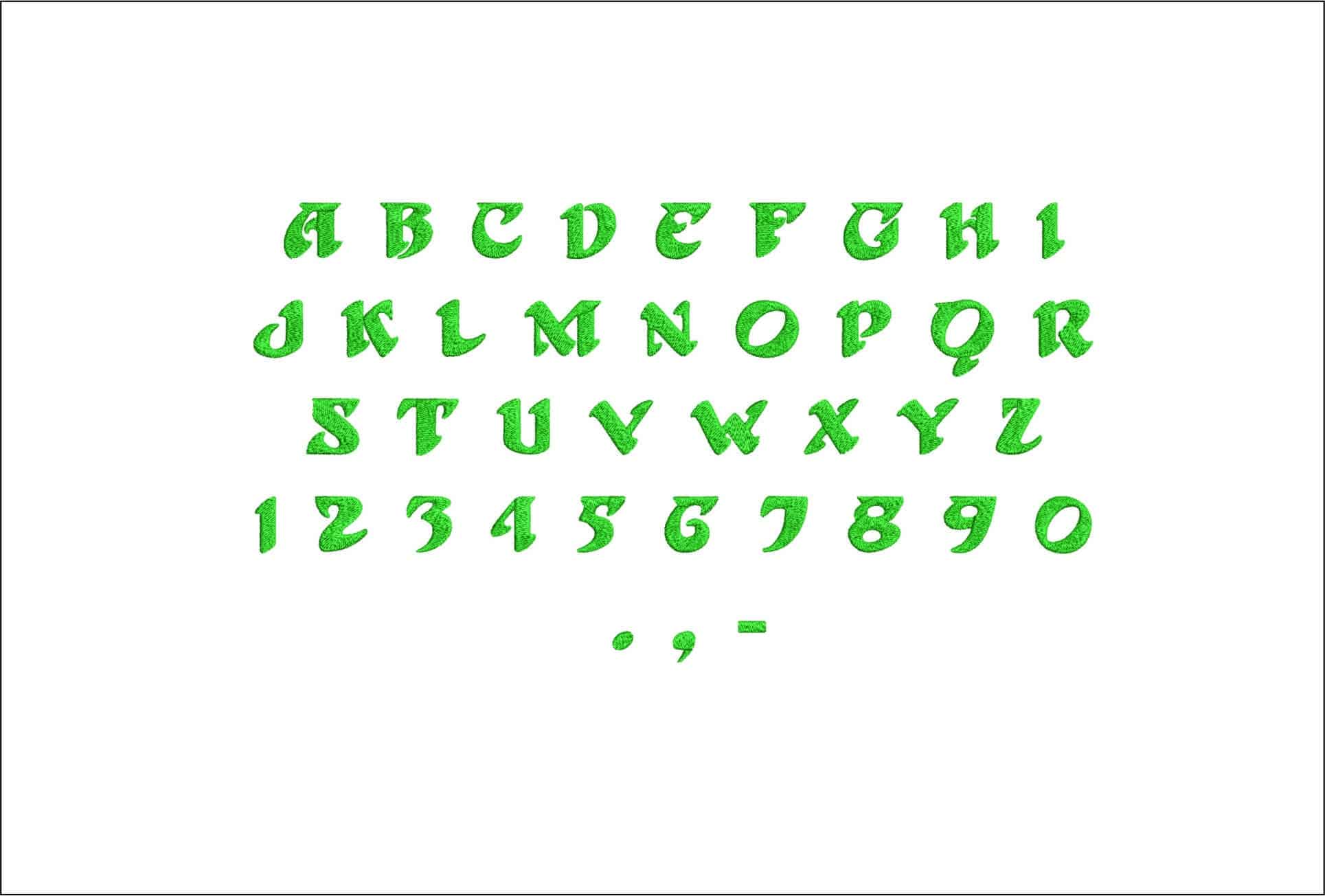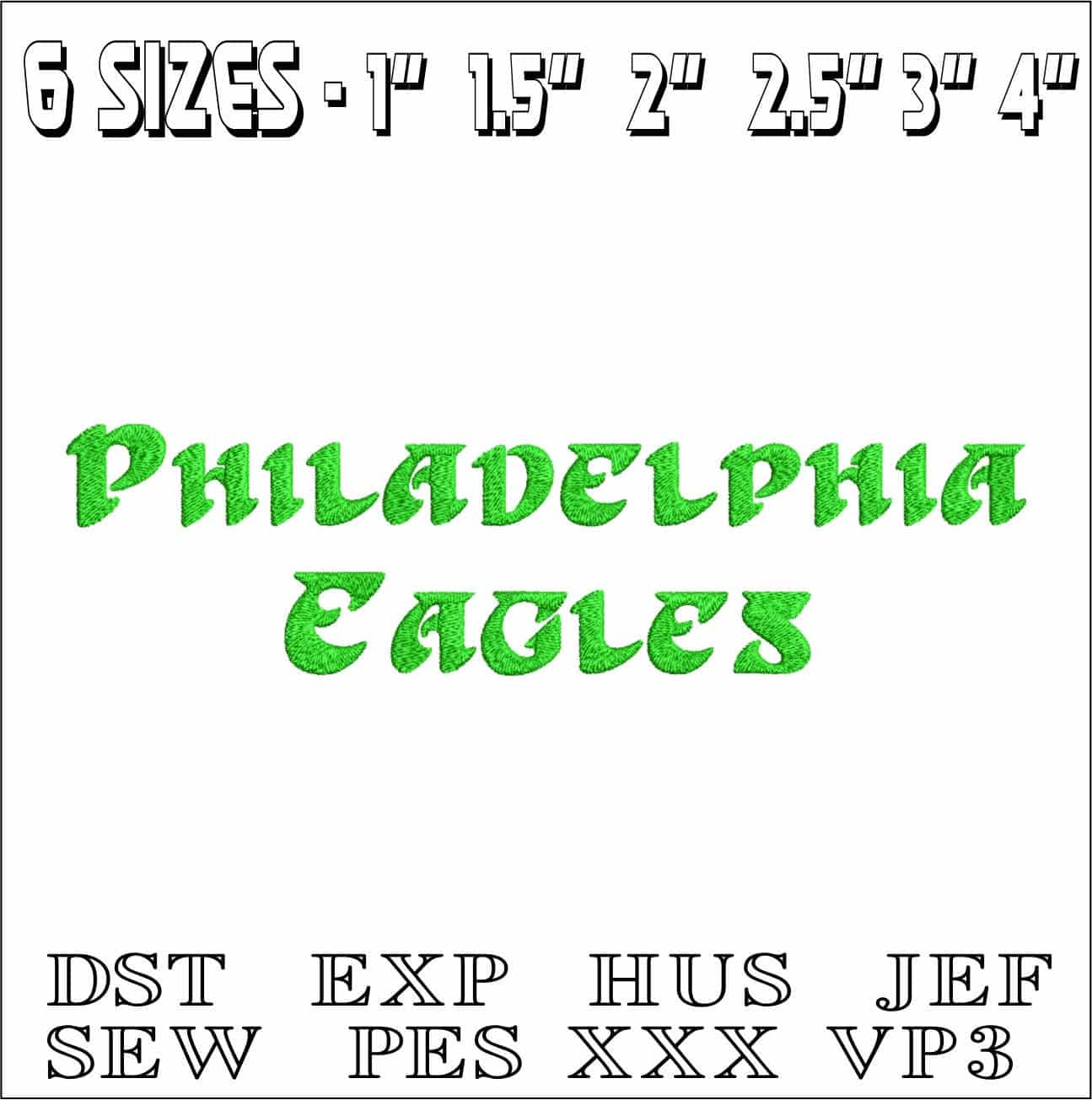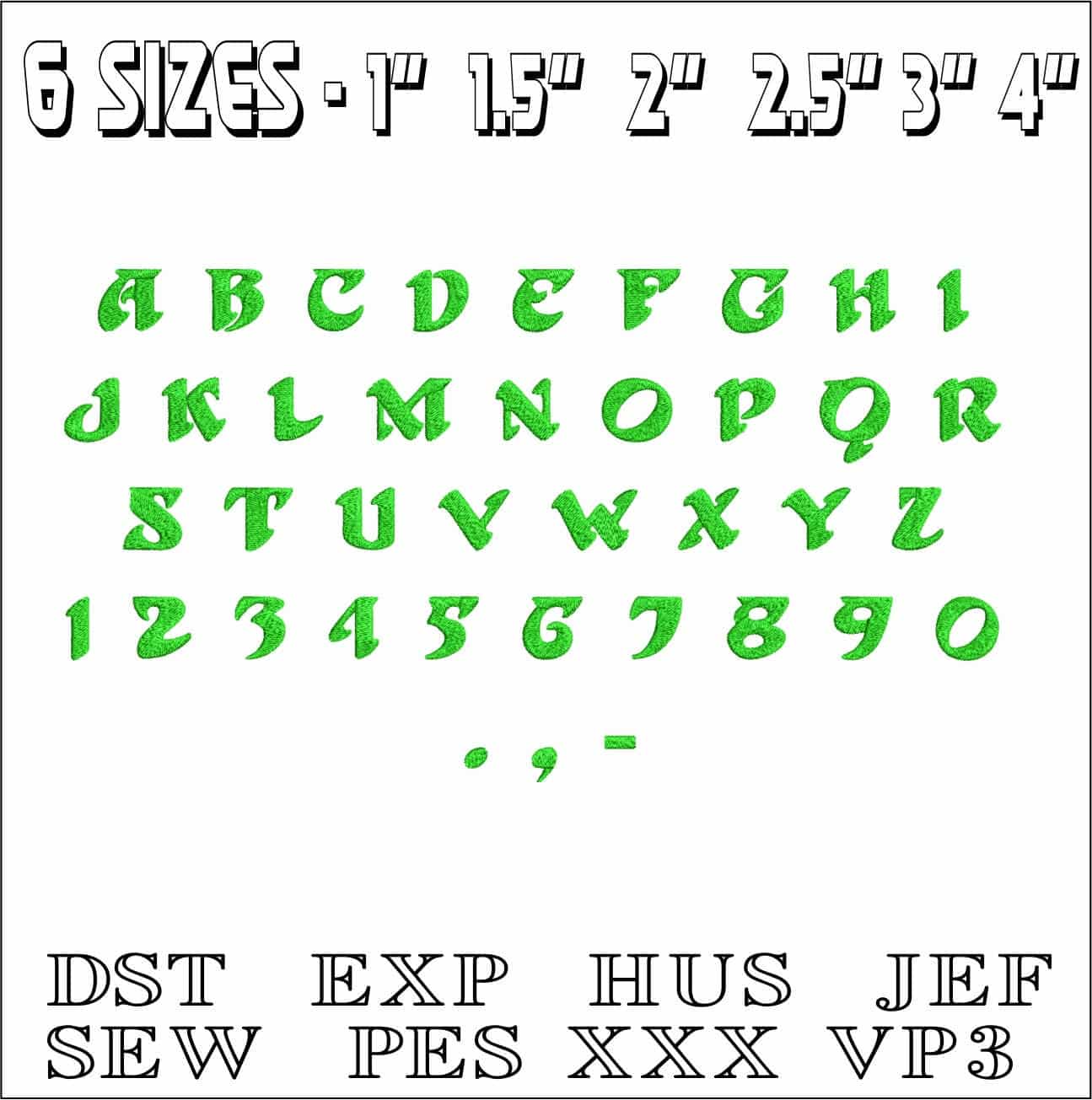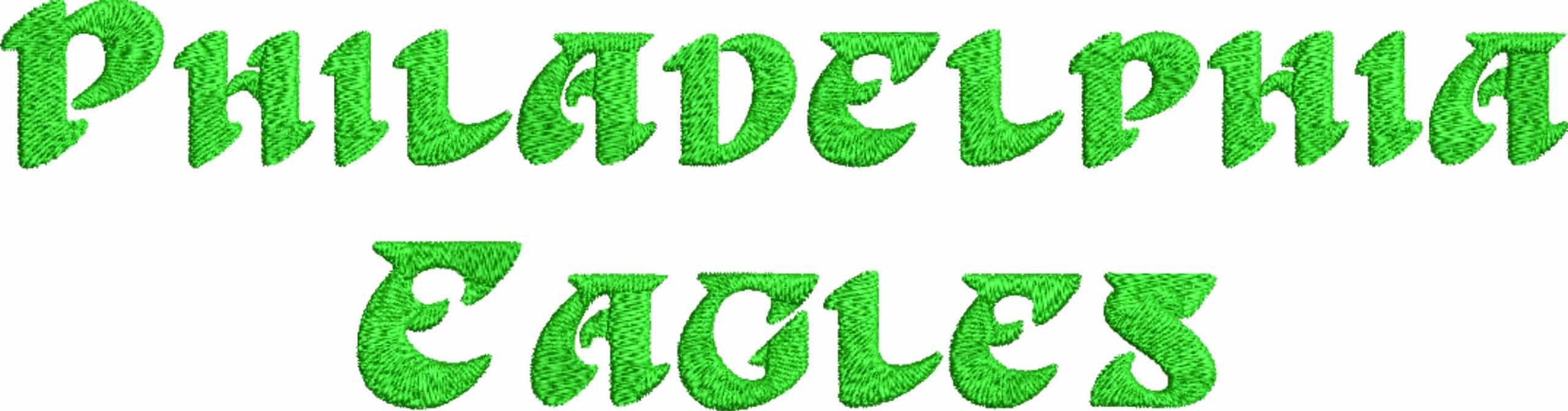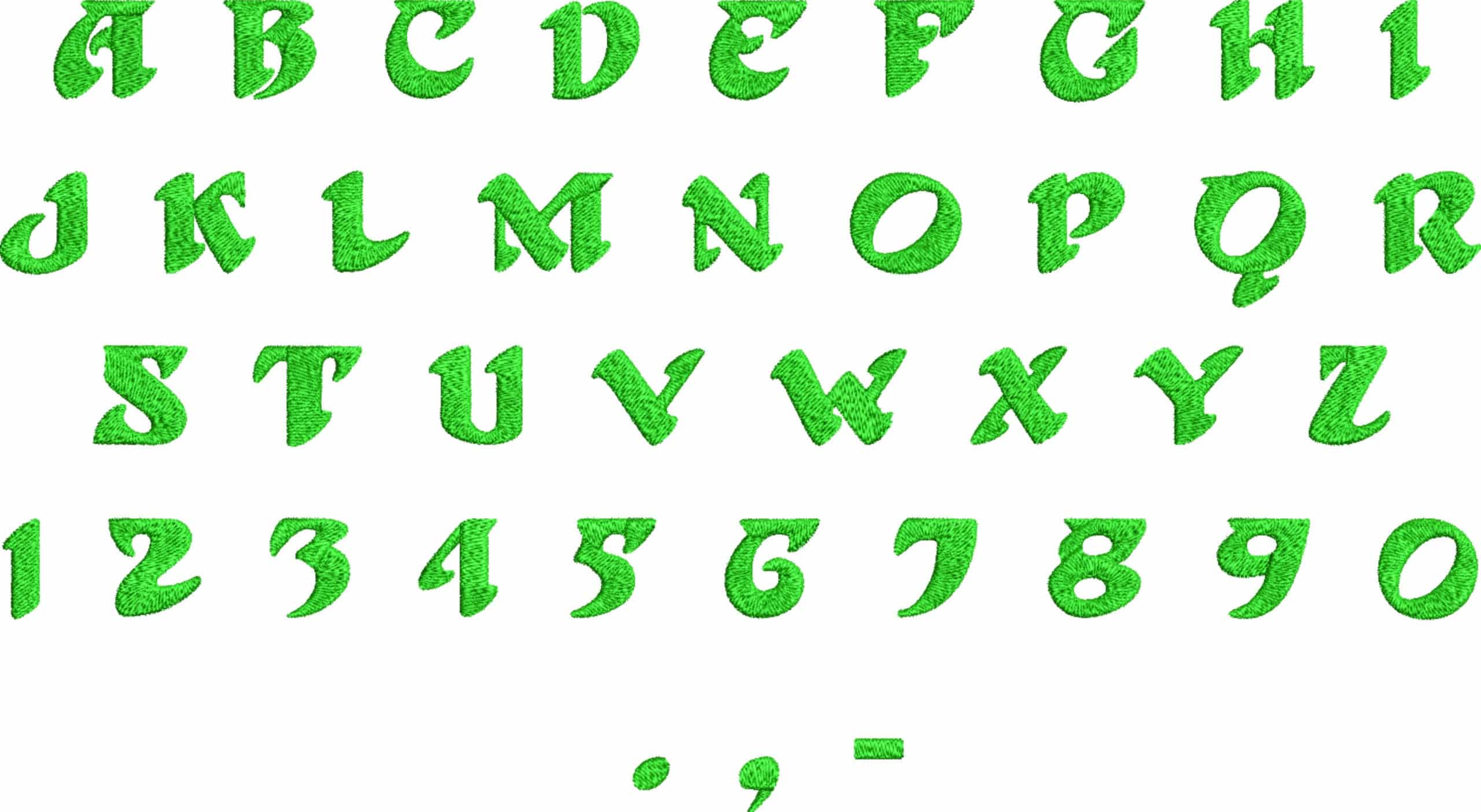
Bold Philadelphia Eagles gothic lettering in bright green and white for fanwear, bags and game-day gifts with a sharper custom look.
Bring bold fan lettering to your stitching with this Philadelphia Eagles embroidery font set, worked in a sharp gothic style that stands out straight away. The sample shows the full uppercase alphabet, numbers and punctuation in bright green and white, giving names, initials and short phrases a distinctly game-day feel. It suits Eagles supporters who want their projects to look more like team gear than a standard monogram.
This style works especially well on hoodie fronts, sweatshirt sleeves, black caps, tote bags and the back of a denim jacket, where the strong letter shapes stay clear and readable. The contrast of green and white gives it punch on dark fabrics, while the pointed gothic detailing adds character without losing legibility. Use it for surnames, player-inspired wording, locker-room style labels or matching fan accessories that need a tougher, sport-led finish.